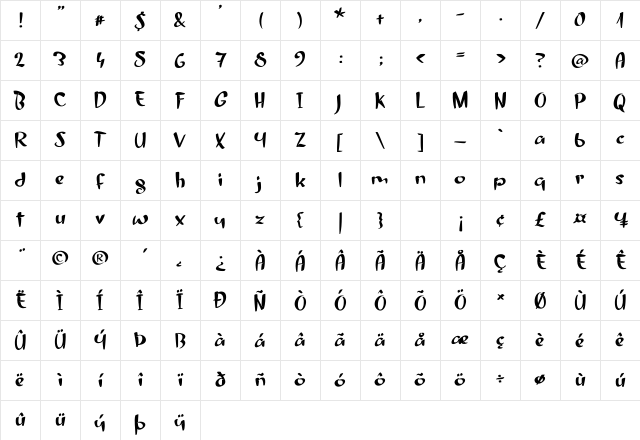
Margarita in August Regular
Foundry: Roland Huse
Designer: Roland Huse
Design Context for Margarita in August
Margarita in August is a composed and adaptable typeface that performs quietly and consistently across a wide range of design contexts.